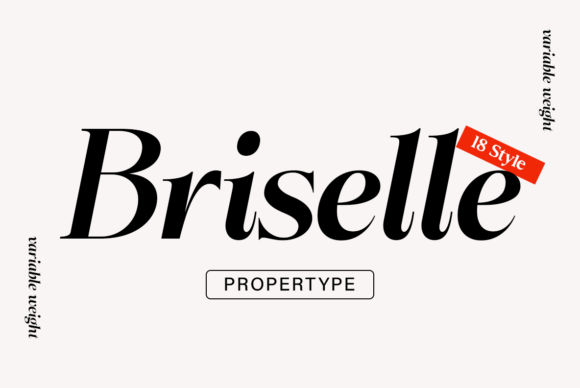
The Briselle Font: A Designer’s New Best Friend
I’ll never forget the design project that led me to discover the Briselle Font. I was working on a branding project for a luxury fashion brand, and I was struggling to find the perfect font that would convey elegance, sophistication, and a touch of playfulness. The client wanted a font that would stand out, but not be too over-the-top. After hours of searching, I stumbled upon Briselle Font, and it was love at first sight. ✨
• ✨ High-contrast typeface with a unique blend of transitional and contemporary styles
• ✅ Multiple thicknesses ranging from thin to black, making it versatile for various design projects
• ✅ Beautiful italics and excellent weights that add a touch of elegance to any design
• ✅ Extensive language support, making it perfect for global brands
While I absolutely love Briselle Font, there are a few minor quirks to be aware of: ⚠️
• ⚠️ Some users may find the font’s high contrast a bit challenging to read in smaller sizes
• ⚠️ The font’s unique features may not be suitable for very formal or traditional designs
• 🤔 Limited availability of certain OpenType features in certain software
A Practical Guide to Using Briselle Font
The Story Behind Briselle Font
Briselle Font was designed with the goal of creating a versatile and elegant typeface that would excel in display settings. The designer, inspired by the beauty of transitional and contemporary typefaces, aimed to create a font that would be both sophisticated and playful. With its unique blend of high-contrast styles and multiple weights, Briselle Font is perfect for designers looking to add a touch of luxury to their designs.
Q: What is the best way to use Briselle Font in a design project?
A: Briselle Font excels in display settings, such as headlines, titles, branding projects, logo designs, packaging, magazine headlines, advertisements, and short or long texts.
Q: Can I use Briselle Font for body text?
A: While Briselle Font is primarily designed for display settings, it can be used for body text in larger sizes (14pt or larger). However, it’s recommended to use a font with lower contrast for body text to ensure readability.
Q: Is Briselle Font suitable for digital use?
A: Yes, Briselle Font is optimized for digital use and can be used in a variety of digital applications, including websites, social media, and digital advertising.